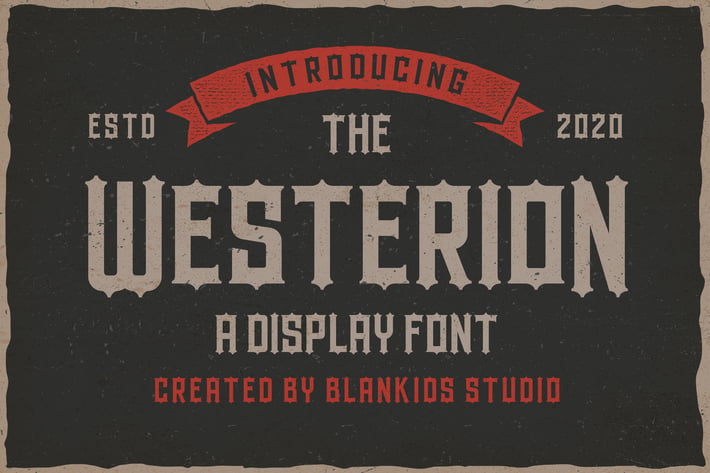
Westerion a Vintage Display Font
Introducing of our new product the name is Westerion a Vintage Display Font. Westerion inspired by Vintage style this font is a fun theme very good for display, tshirt design, craft, quote sign, logotype and etc